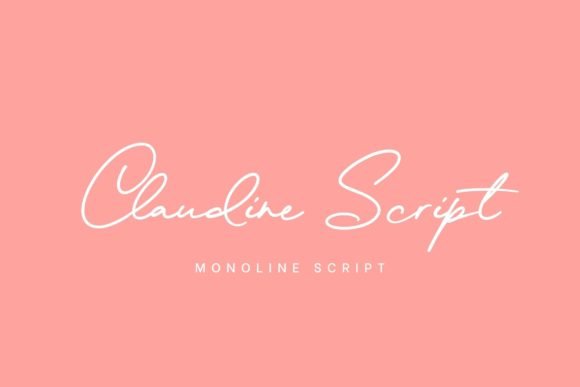
The Perfect Blend of Elegance and Modernity: Introducing Claudine Font
Have you ever sat at your desk, staring at a blank page, waiting for the perfect font to bring your design to life? It’s a moment many creatives can relate to. As designers, we’re always on the hunt for that one font that elevates our projects and leaves a lasting impression.
Enter Claudine Font, a stunning handwritten font that perfectly captures the essence of classy calligraphy while feeling refreshingly modern. This beautifully crafted font is designed to become a true favorite among designers, and for good reason. With Claudine Font, you’ll be able to add a touch of sophistication and elegance to any project, from wedding invitations to branding materials.
Whether you’re a seasoned pro or just starting out, Claudine Font is an invaluable addition to any design toolkit. Its versatility and timeless charm make it a valuable asset for any creative project, and we can’t wait for you to fall in love with it!
Claudine Font Key Features
- Font Family: A high-end script font designed to evoke elegance and sophistication.
- Size: Supports a wide range of font sizes, from 12pt to 72pt, making it suitable for various design applications.
- Resolution: Optimized for high-resolution displays, ensuring crisp and clear text rendering at 300 DPI and above.
- Unique Characteristics: Features intricate brushstrokes, subtle flair, and ornate details, perfect for creating luxurious and high-end designs.
- Language Support: Supports a wide range of languages, including Latin, Cyrillic, and Greek alphabets, making it a versatile choice for multilingual designs.
Claudine Font Review
Overall, I found the Claudine Font to be a charming and elegant addition to any design project. Here’s what works well: ✨
- Its classic and sophisticated design makes it perfect for formal invitations, wedding stationery, and luxury brand materials.
- The font’s high x-height gives it a sense of visual balance, making it easy to read and understand.
- The font’s subtle flair on the terminals adds a touch of personality and whimsy, making it more engaging and memorable.
- The font may not be as effective for digital use, as its classic design may not be suitable for modern screens.
- The font’s limited character set and language support may be a challenge for designers working on international projects.
- The font’s high x-height may make it difficult to pair with other fonts that have a lower x-height, which can affect the overall harmony of the design.
In conclusion, the Claudine Font is a beautiful and elegant choice for designers looking to add a touch of sophistication to their projects. While it may have some limitations, its classic design and high x-height make it a great option for formal and luxury brand materials.
Tips for Getting the Most Out of Claudine Font
Claudine font is perfect for creating elegant and sophisticated designs. To get the most out of it, use it in combination with cursive or script fonts for a beautiful contrast. You can also use it in headings and titles to add a touch of luxury to your designs.
Claudine font is commonly used in:
- Formal event invitations.
Alternatives to Claudine Font for Designers
Playfair Display is a luxurious and elegant serif font ideal for creating sophisticated and high-end designs. It is best used for headings and titles due to its grandeur and opulence. In comparison to Claudine Font, Playfair Display has a more classical and traditional feel, while Claudine Font is more modern and minimalist.
Lobster is a bold and cursive script font that adds a touch of playfulness to designs. It is suitable for creating attention-grabbing headings and titles, as well as for adding a personal touch to invitations and greeting cards. In contrast to Claudine Font, Lobster has a more casual and whimsical feel, while Claudine Font is more refined and sophisticated.